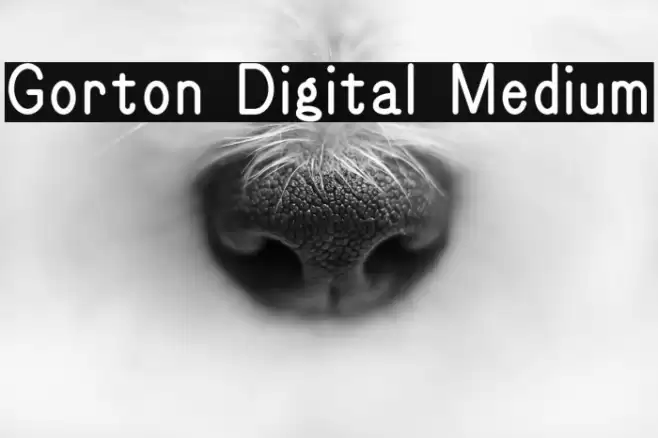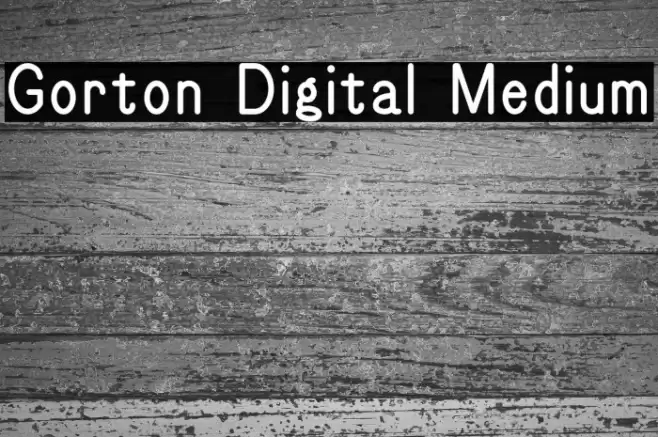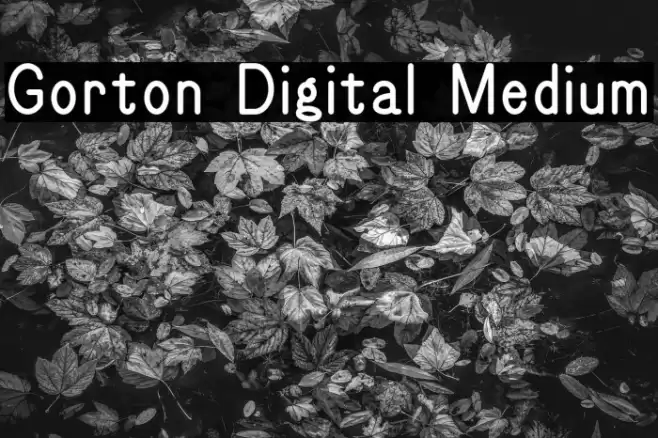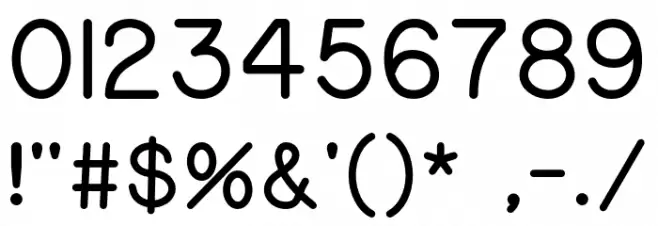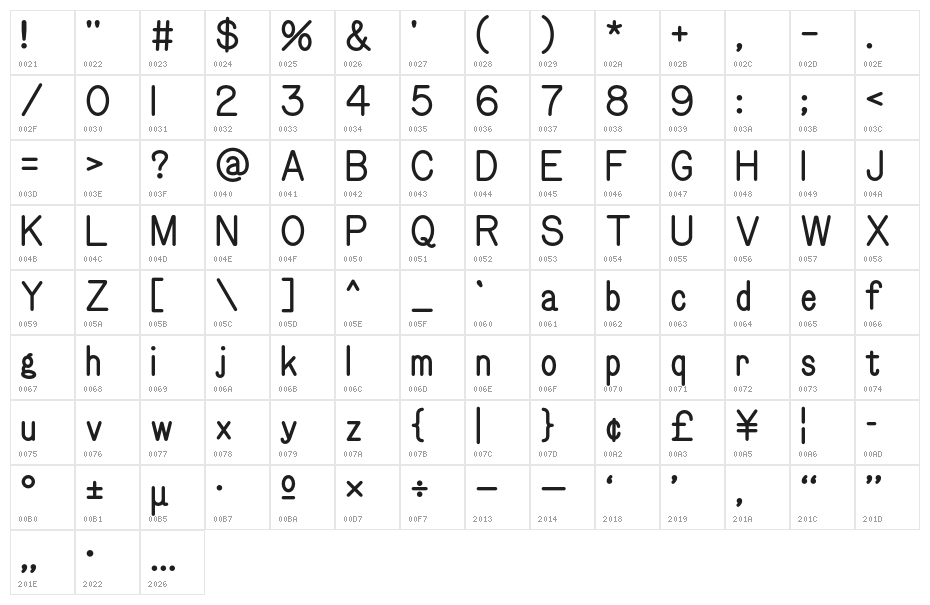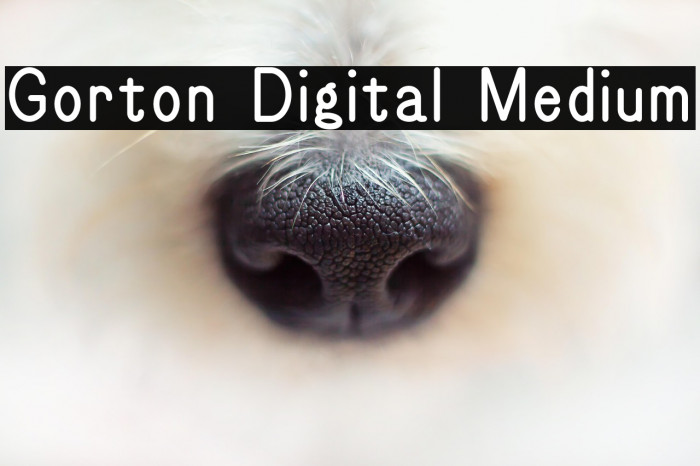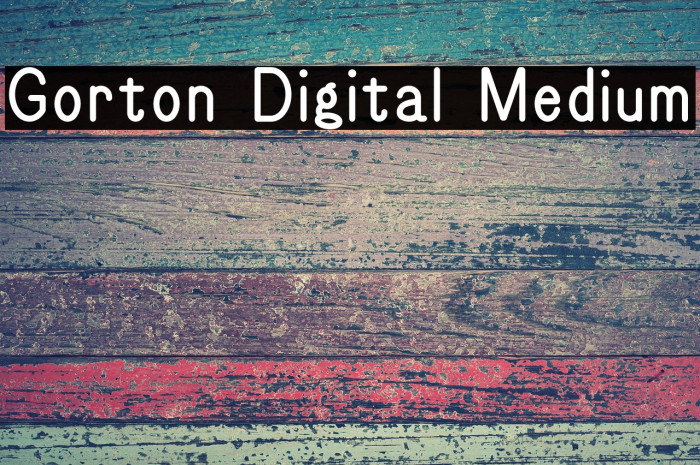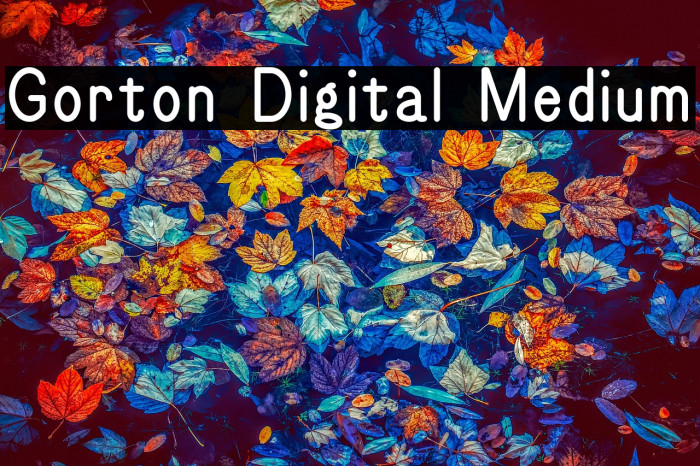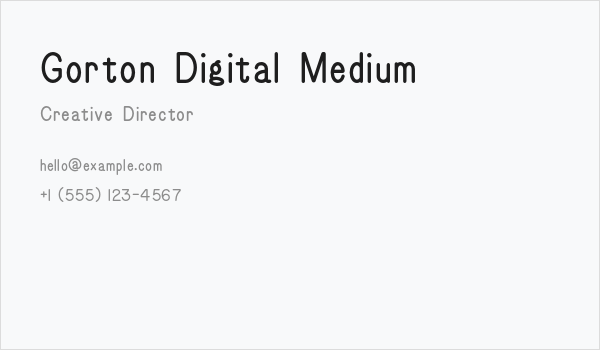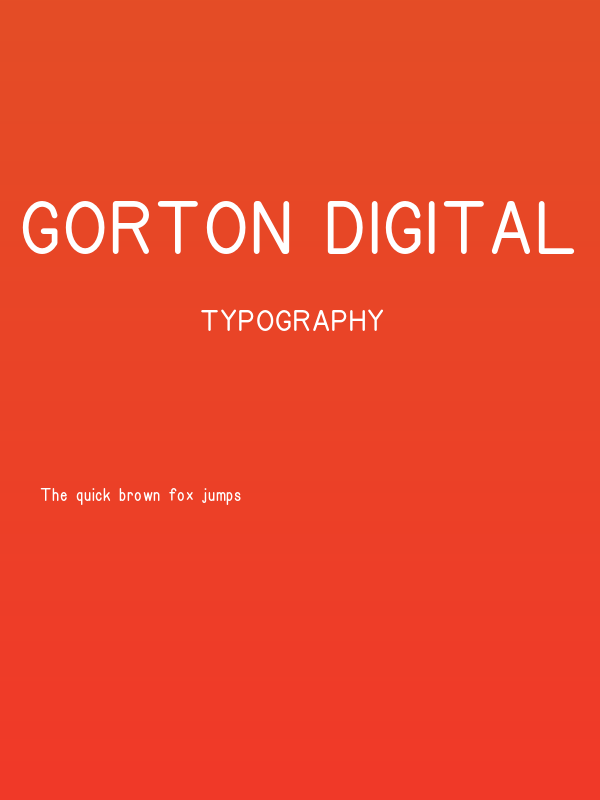
Gorton Digital Medium Fuentes
- ( A revival of a 20th century interwar typeface. In the early- to mid-20th century, the George Gorton Machine Company made engraving machines (among other machines). FREE )